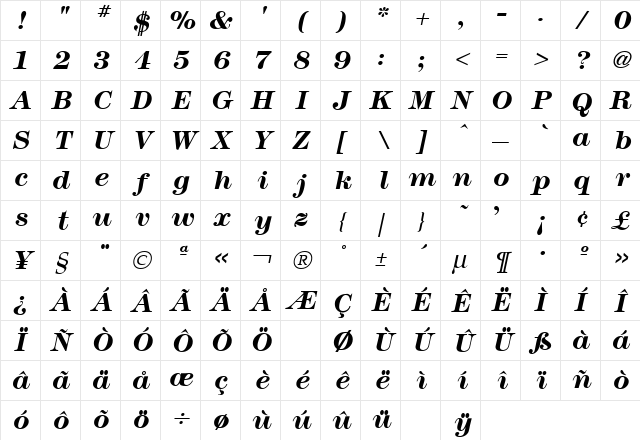
Modern Bold Italic
Modern Family
Modern Bold Italic
Design Context for Modern
Modern is a composed and adaptable typeface that performs quietly and consistently across a wide range of design contexts. The slanted form adds forward momentum and visual energy. Its bold stroke weight gives it real presence on the page.